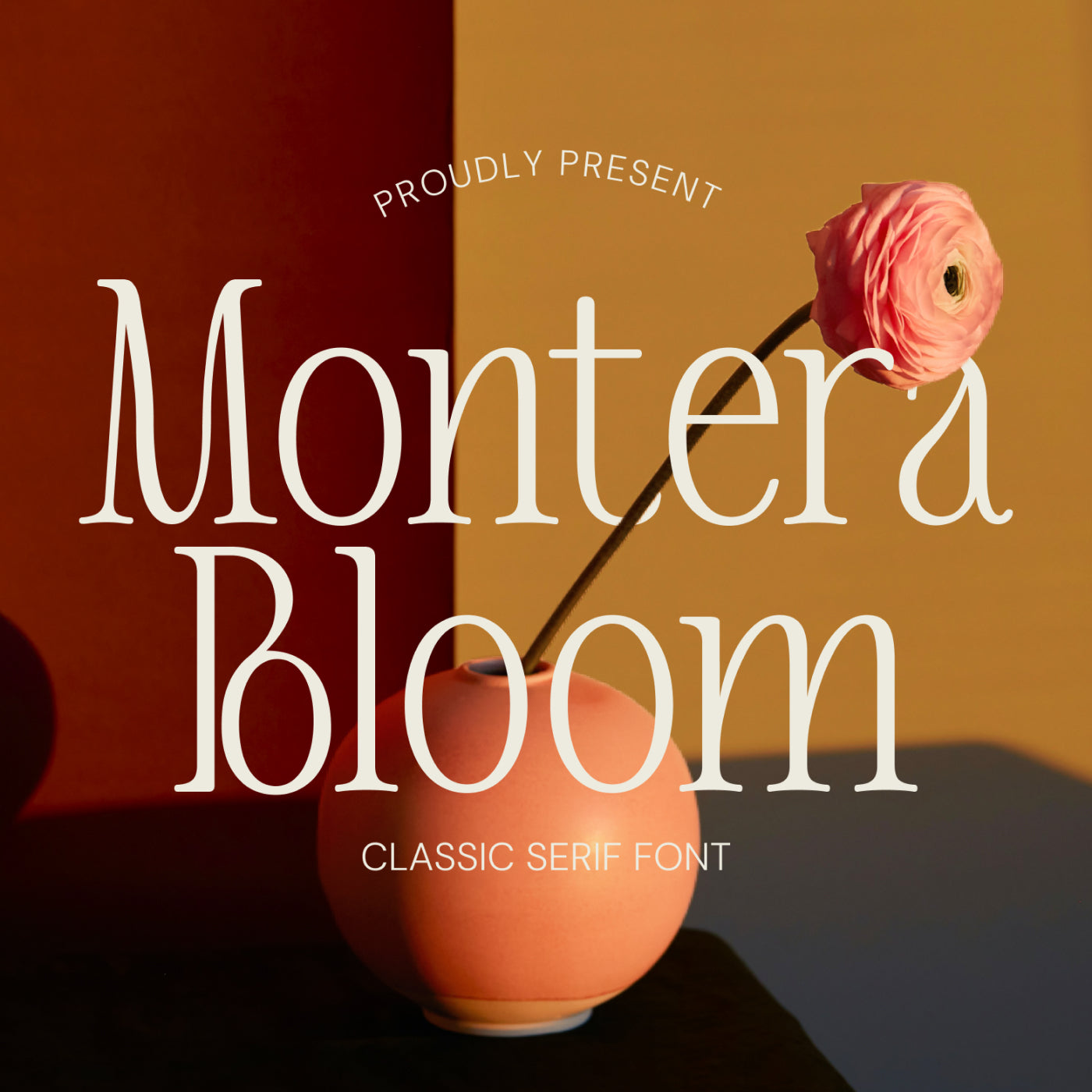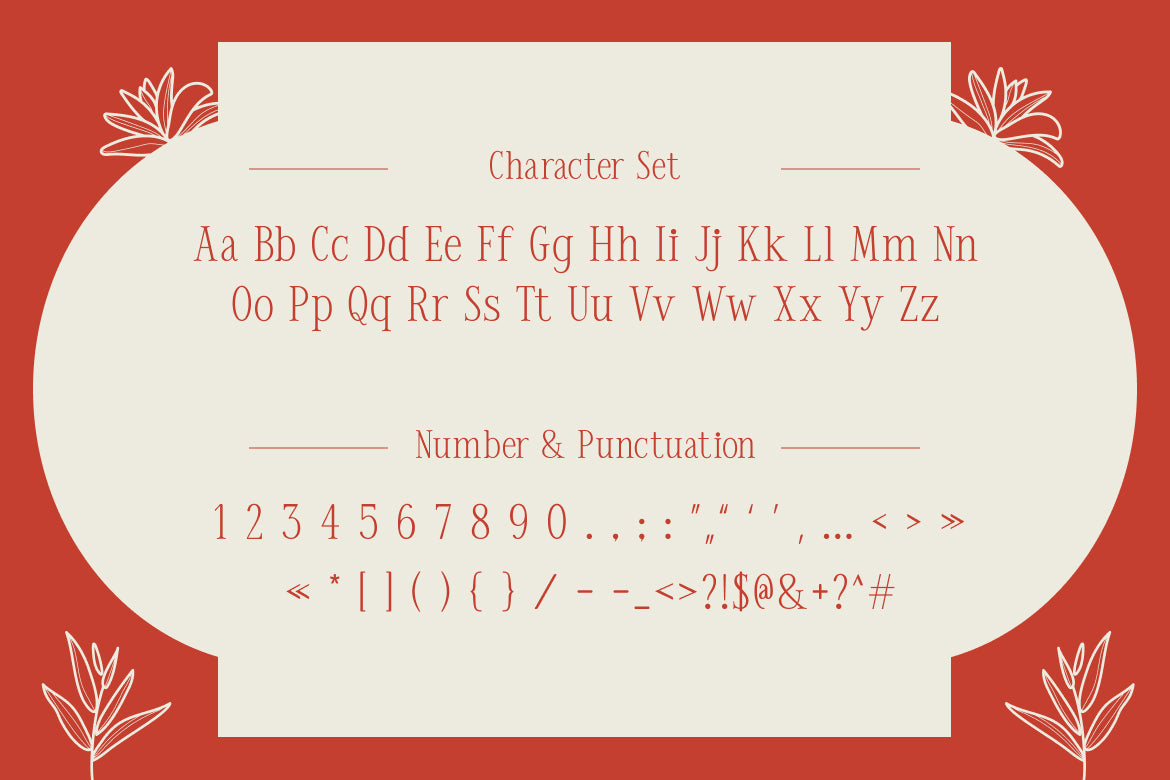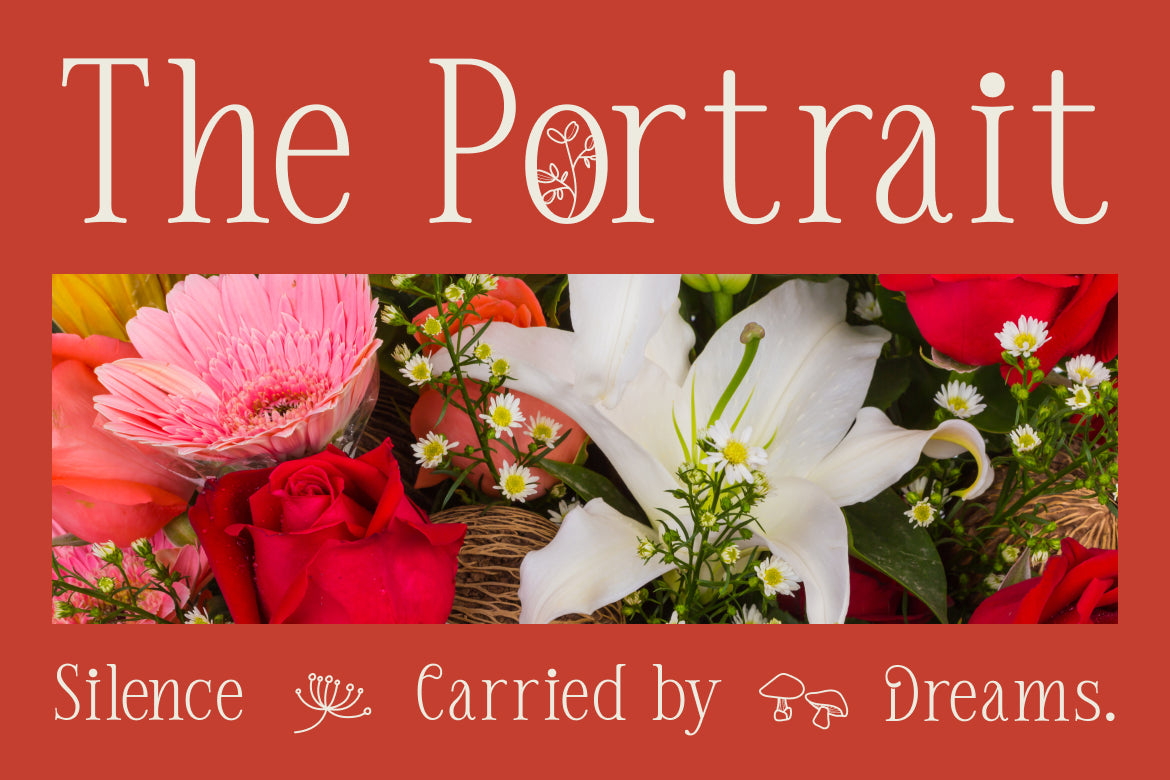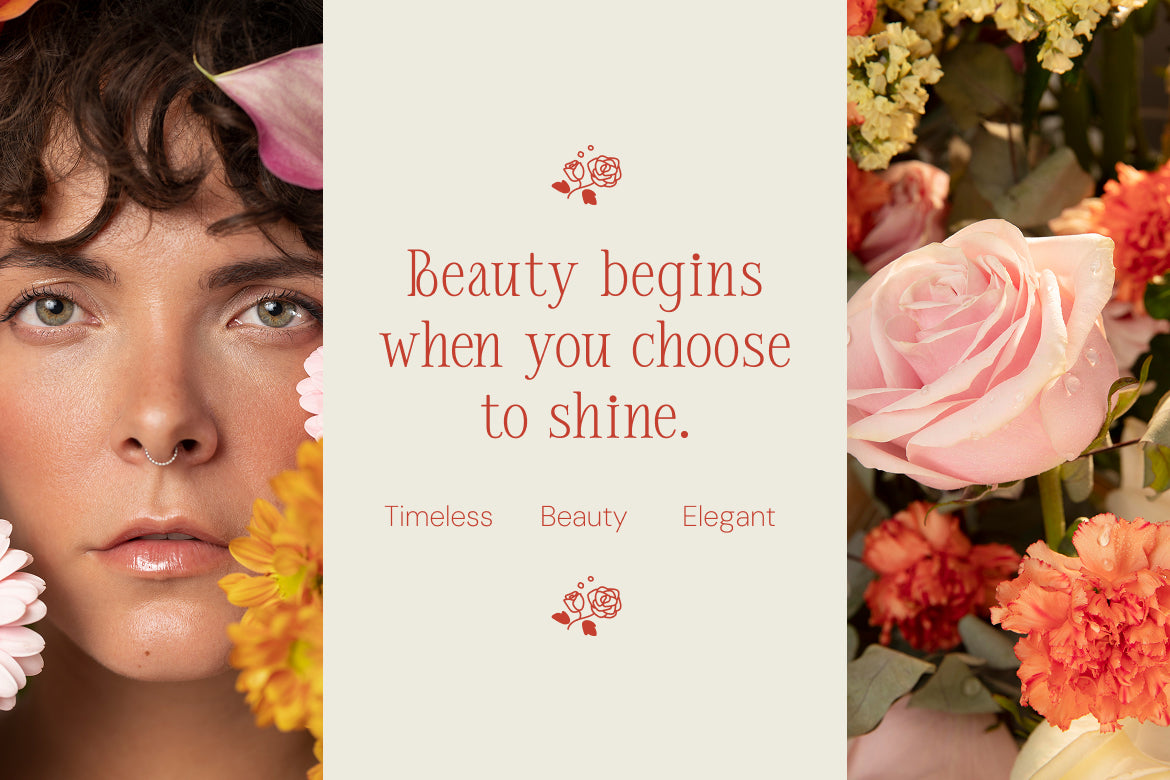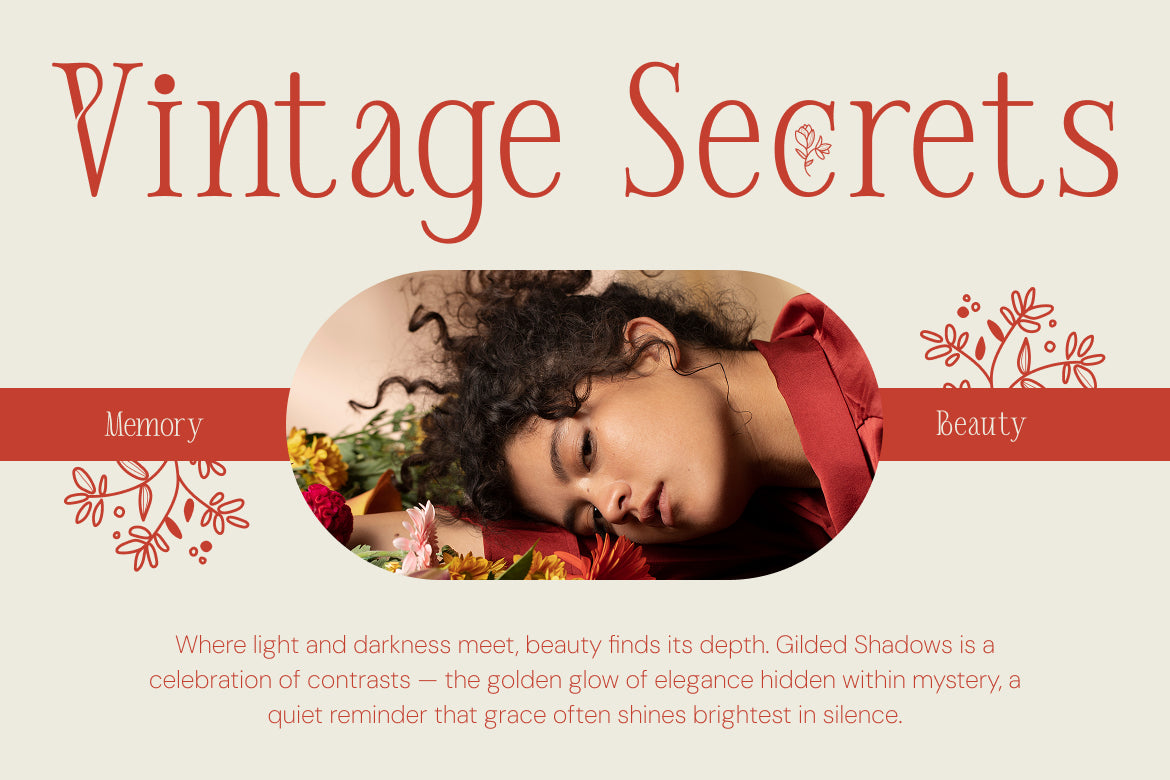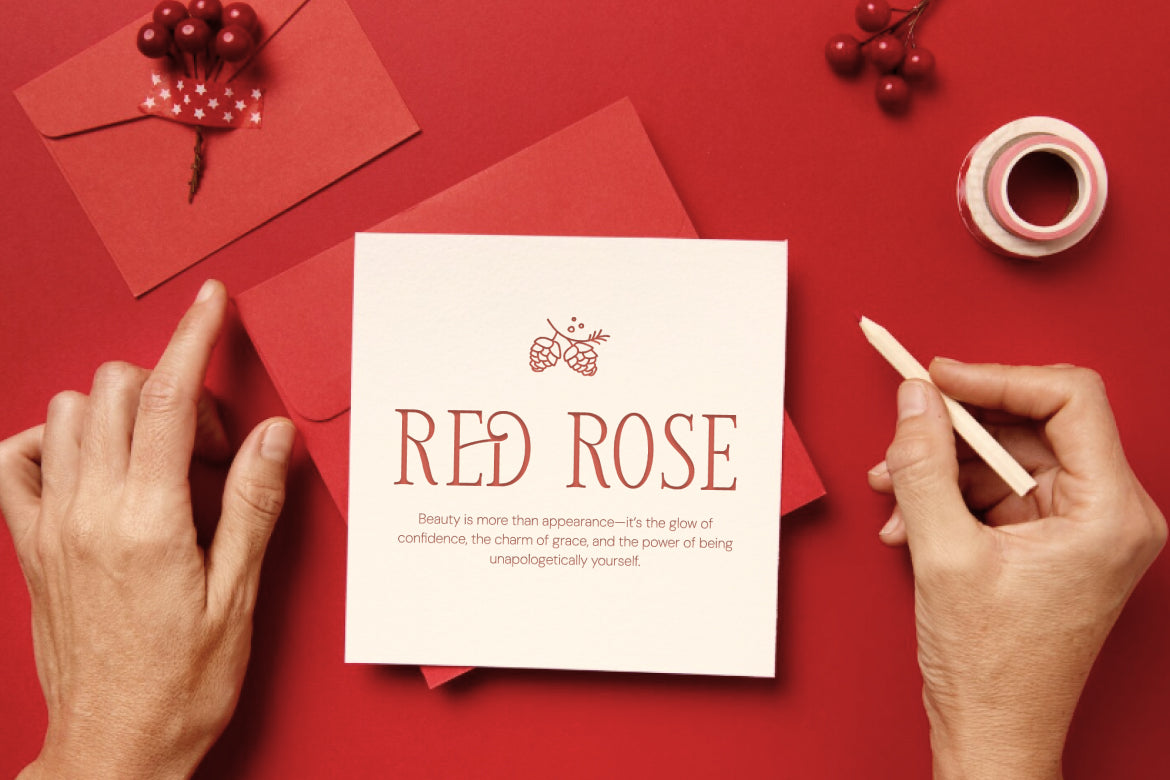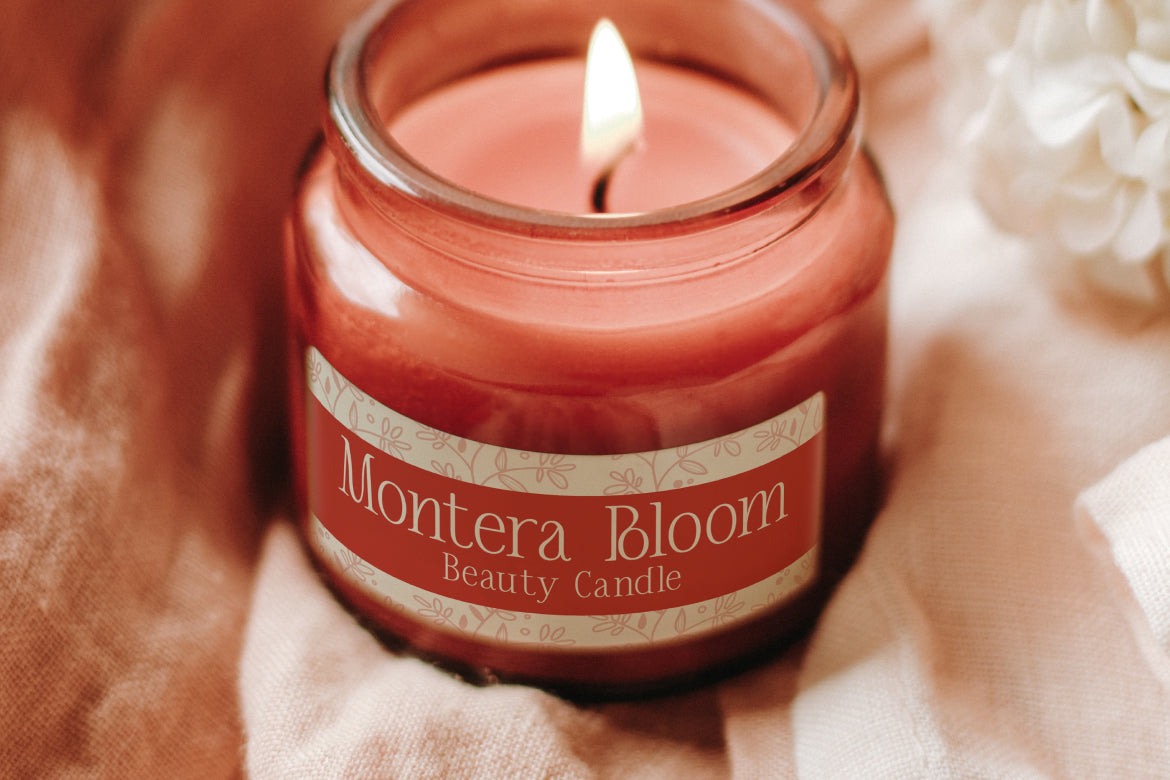
Montera Bloom Classic Serif Font
Montera Bloom Classic Serif Font is an elegant typeface designed to blend timeless serif sophistication with soft contemporary refinement. Featuring high-contrast strokes, elongated letterforms, graceful curves, and delicate proportions, this font creates a luxurious and artistic appearance while maintaining excellent readability across both print and digital applications. The refined character construction delivers a premium visual identity that feels romantic, fashionable, and effortlessly sophisticated.
Built with professionally crafted glyphs and balanced typography, the font performs beautifully in large headlines, editorial compositions, and premium branding applications. The carefully designed styling provides an excellent solution for luxury branding, fashion campaigns, beauty packaging, wedding stationery, magazine layouts, social media graphics, and contemporary creative projects seeking a polished and elegant typographic presence.
Montera Bloom Classic Serif Font is a high-contrast serif typeface featuring elongated letterforms and delicate proportions, available in OTF, TTF, and WOFF formats with uppercase, lowercase, numerals, and punctuation. It includes professionally crafted glyphs and is compatible across multiple platforms.